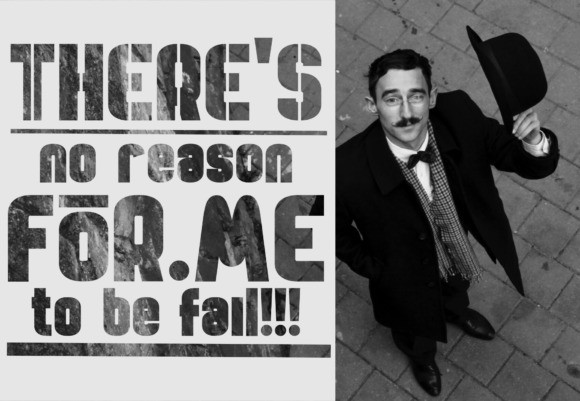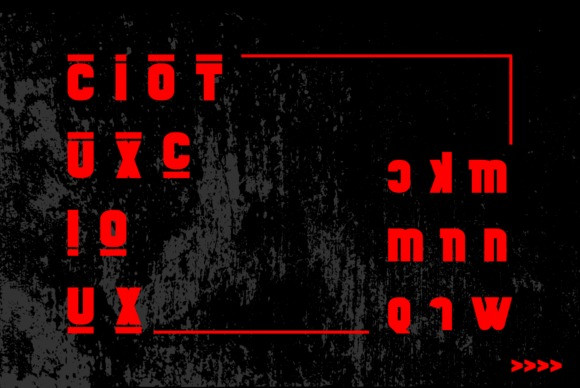
Raugi Sans Serif Font
Raugi Font a super unique ligature font that you wont forget! It’s a high contrast sans serif that has loads of style. A modern take on a Caslon style typeface. Raugi Font is a modern Ligature Sans Serif Font loaded with alternates and ligatures that makes for stunning logos, quotes, wedding invites, blog posts, Instagram, and more!